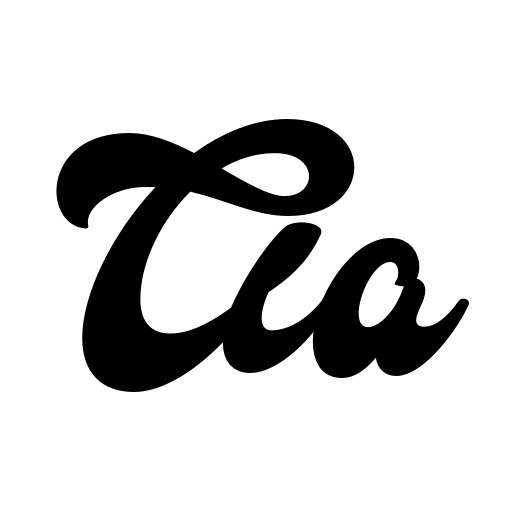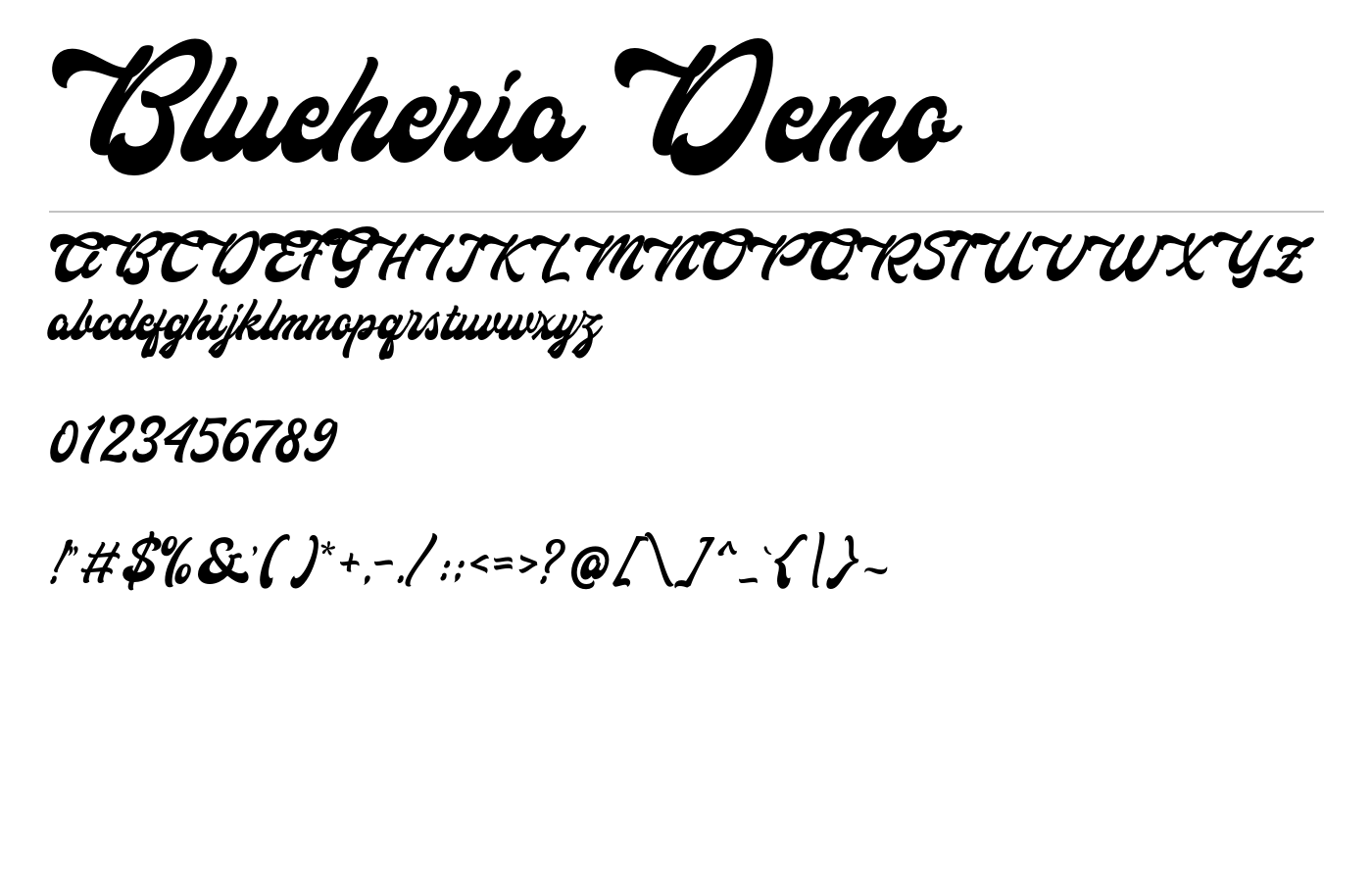
Blueheria Demo is a bold and lively script font with a strong handwritten character, featuring smooth, connected strokes and a playful, casual flair. Its thick, rounded letterforms and slightly condensed width make it ideal for eye-catching headlines, logos, and branding that seeks a friendly, approachable, and artistic vibe. This font works especially well for creative projects, packaging, and invitations where a personal, stylish touch is desired.
Blueheria Demo Font
About Blueheria Demo Font
| Font family | Blueheria Demo Font |